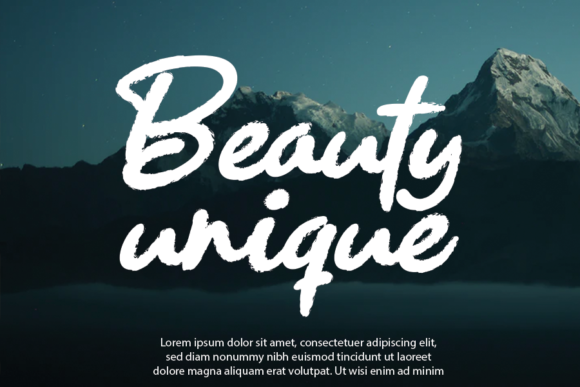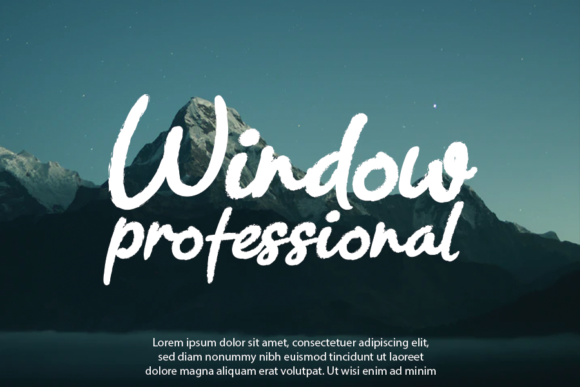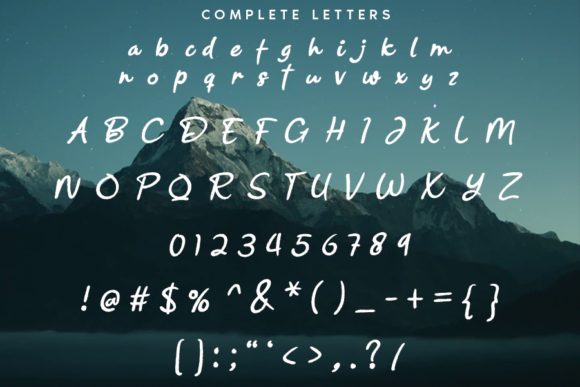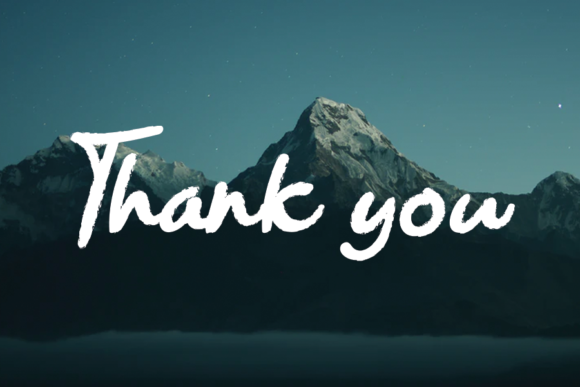
Raihagea Font
About Raihagea Font
Raihagea is an exquisite handwritten font, masterfully designed to become a true favorite. Fall in love with its incredibly versatile style and use it to create spectacular designs!